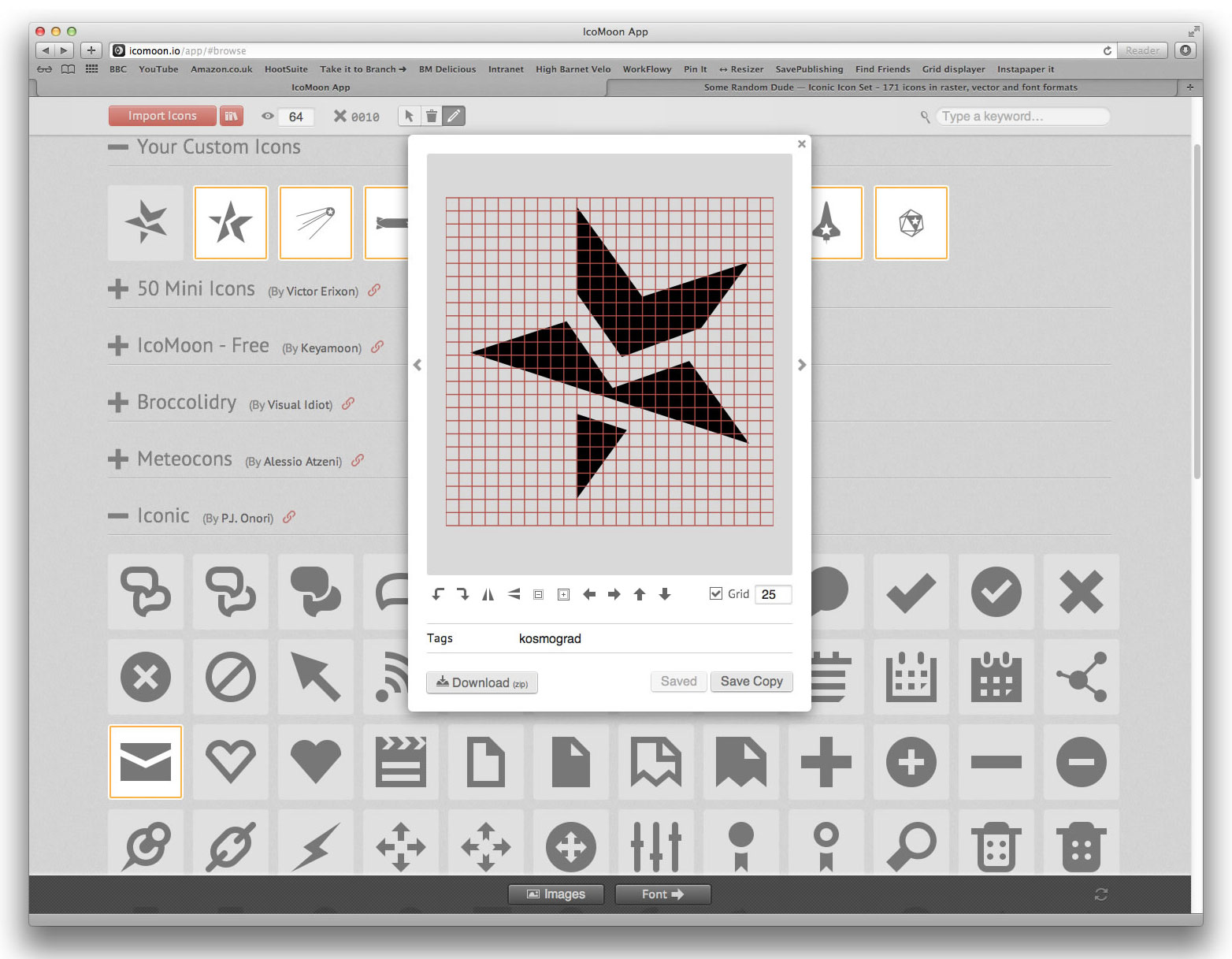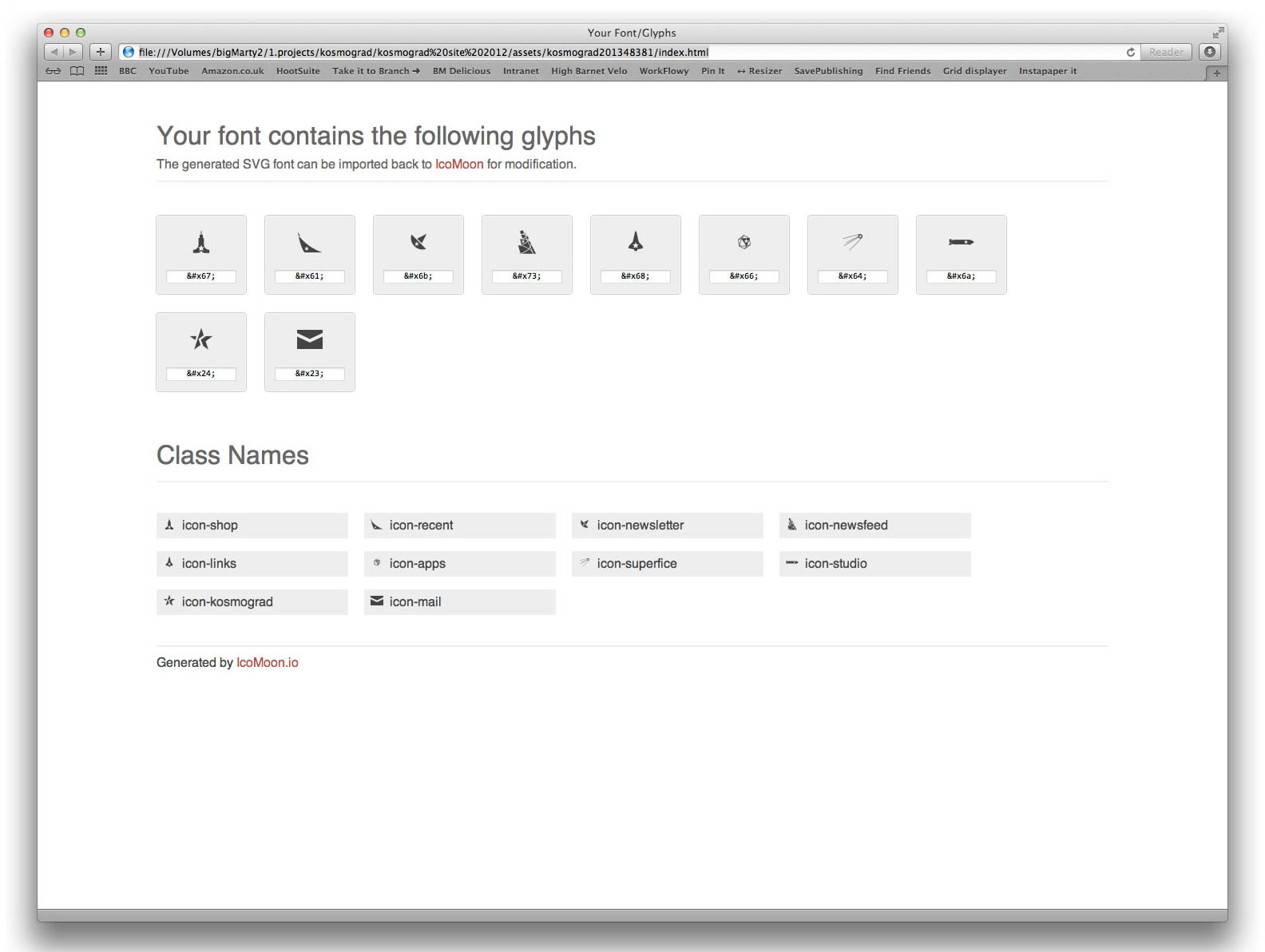
I had created some neat icons for a website redesign I was doing, and I previewed the new site on an old iPad. The layout looked OK at normal size, but zooming in to part of the page, I suddenly saw that my icon was a blurry mess, while the text-based header was still crisp and sharp. On a newer Retina-display iPad, the icons didn’t look quite sharp, even at normal size.
The first idea I had was to create double-sized sprite images, setting them to display at half their size using CSS. While this made them look better on a Retina display at normal size, as soon as you started to pinch and zoom, the blurriness returned. But the text was still as crisp and pin-sharp.
The answer was obvious. I needed to turn my icons into a font.
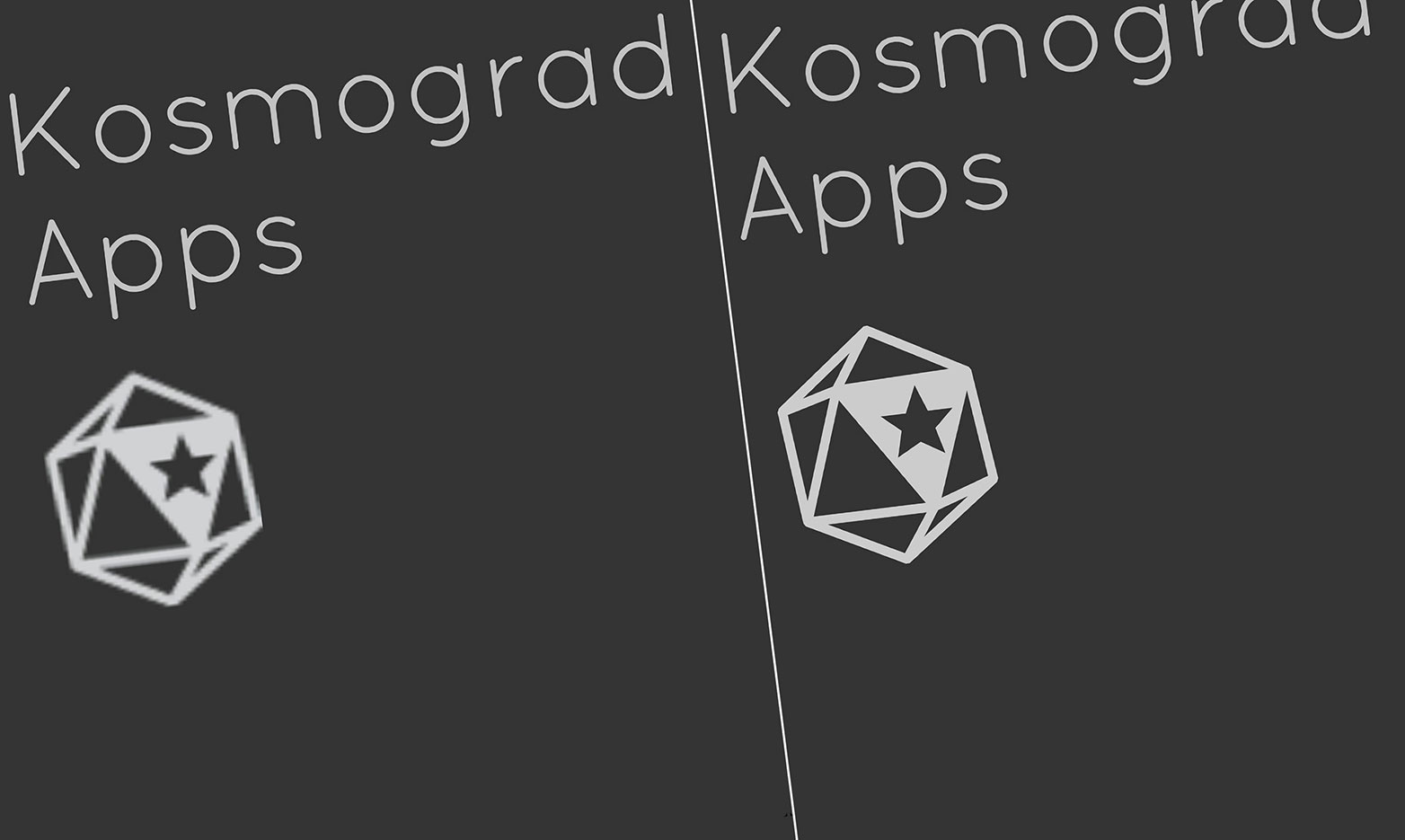
In this tutorial, we’ll look at how to turn vector icons into a web font using a great free web app called IcoMoon. Then, we’ll look at how to use the generated font files and CSS in a web page.
The advantages of using an icon font
An icon font has several advantages over bitmap images, in addition to image sharpness.
- Suitability: an icon font will be much smaller in file size than a series of images, especially if you have used double-sized images for Retina displays. And once the font has loaded, your icons will render instantly, with no need to download an image.
- Scalability: an icon font can be set to any size by setting the <code>font-size</code> property in the accompanying CSS. This enables you to experiment with different sizes; whereas, for bitmap images, you would have to output an image file at each size.
- Flexibility: text effects can easily be applied to your icon, including colors, drop shadows and rollover states. They will also display well against any color or image background.
- Compatibility: web fonts are supported by all modern browsers, and legacy browsers, too, even IE 6 and earlier.
Creating an icon font
Symbol fonts can be built using a dedicated font-creation app such as Glyphs, but a professional typography tool is way beyond the needs or requirements of building a simple icon font, in which the relationship between characters (i.e. kerning and ligatures) is not important.
By far the easiest way is to use a great free online app called IcoMoon, by Keyamoon, which takes away all of the hassle of converting symbols into a web font.
This HTML5 app takes away all of the pain of creating font files for simple uses such as building icon fonts. IcoMoon comes with a number of icon sets already loaded, and you can add more to your library, most of which can be used for free (check the licensing). If you are looking for fairly standard icons, such as “file download” and “shopping cart,” then you may find that using one of these is preferable to creating your own.
1. Prepare your illustrations
To begin with, you need to create the icons in a vector-drawing program that is capable of exporting to SVG format, such as Illustrator or Inkscape.
While you are designing, you can work with whatever colors you like, but the icons must be one solid color. Make sure each icon is approximately the same size. Having one icon much taller or longer than another will make it hard to build a consistent font. Here, I’ve had to reduce the width of my airship icon so that it matches the others.
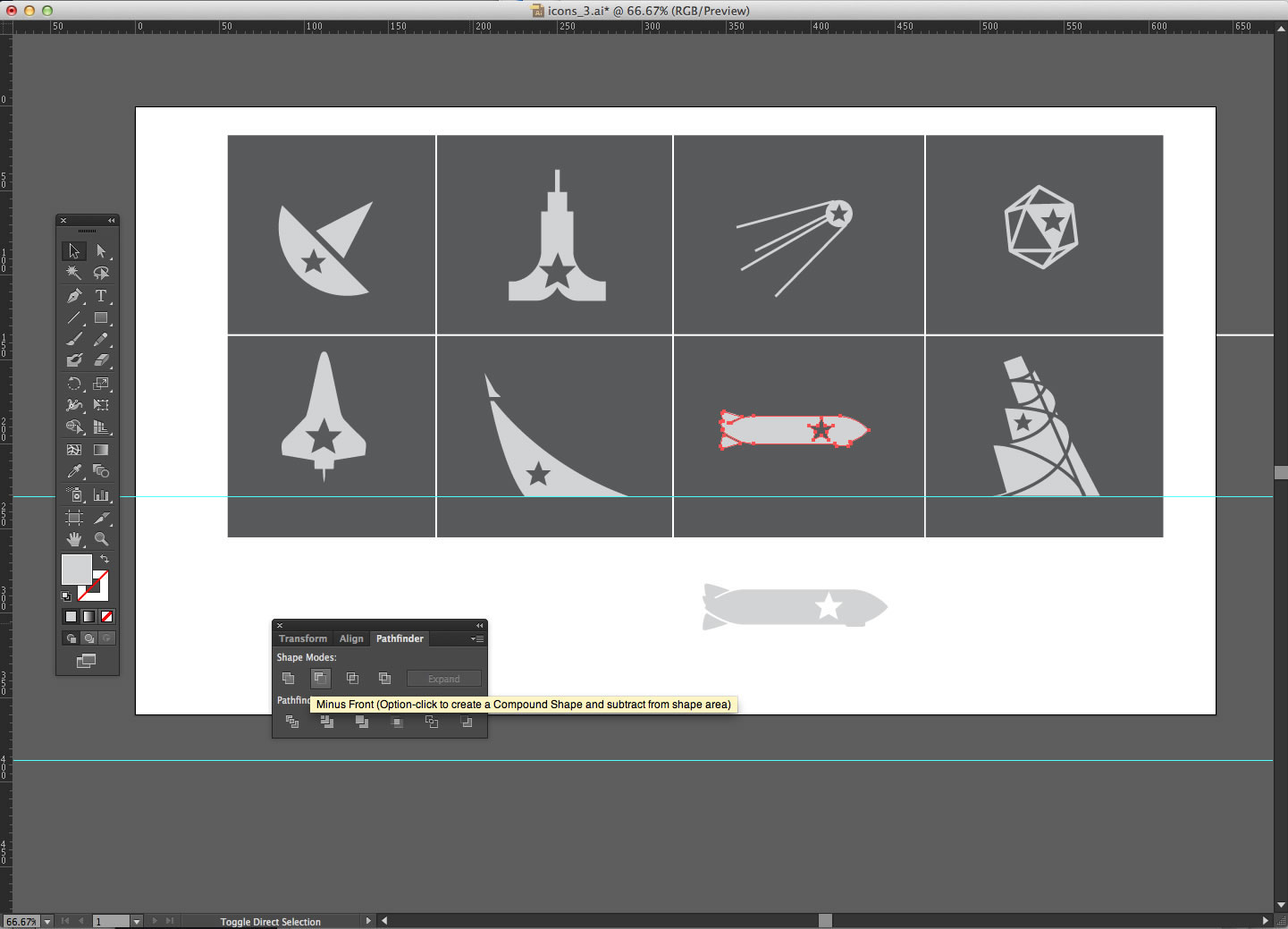
2. Clean up
Check each icon carefully to make sure it doesn’t have imperfections — details that look OK at smaller sizes may hide little defects when zoomed in. In the icon shown below, I need to remove the jagged steps that have crept in when layering elements.
In Illustrator, use the Pathfinder tool to unite overlapping elements, and the Minus Front element to remove cutout elements, such as the star in these icons.
The key principle is to ensure that your icon is readable at small scales. Simplify as much as possible.
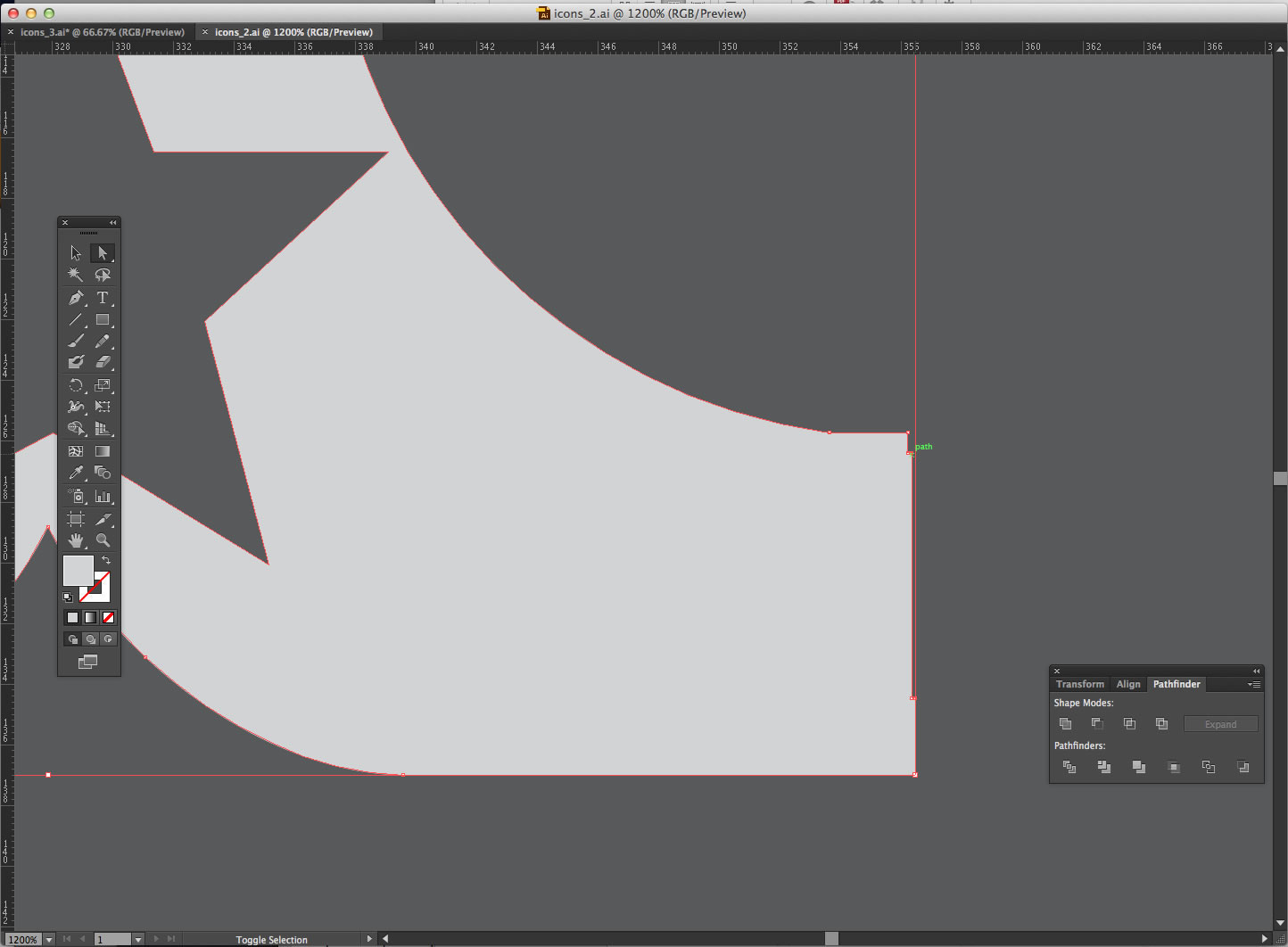
3. Export to SVG
Now, select an icon, and copy and paste it into a new square document (for example, 200 × 200 pixels). Scale the icon so that it fits. You may find it useful to set a baseline ruler. Color the icon so that it is solid black on a white background.
Now, choose <code>File… Save as</code> and save the file as an SVG file. Use the default SVG settings. Once you’ve done this for all of the icons, you’re ready to create a web font.
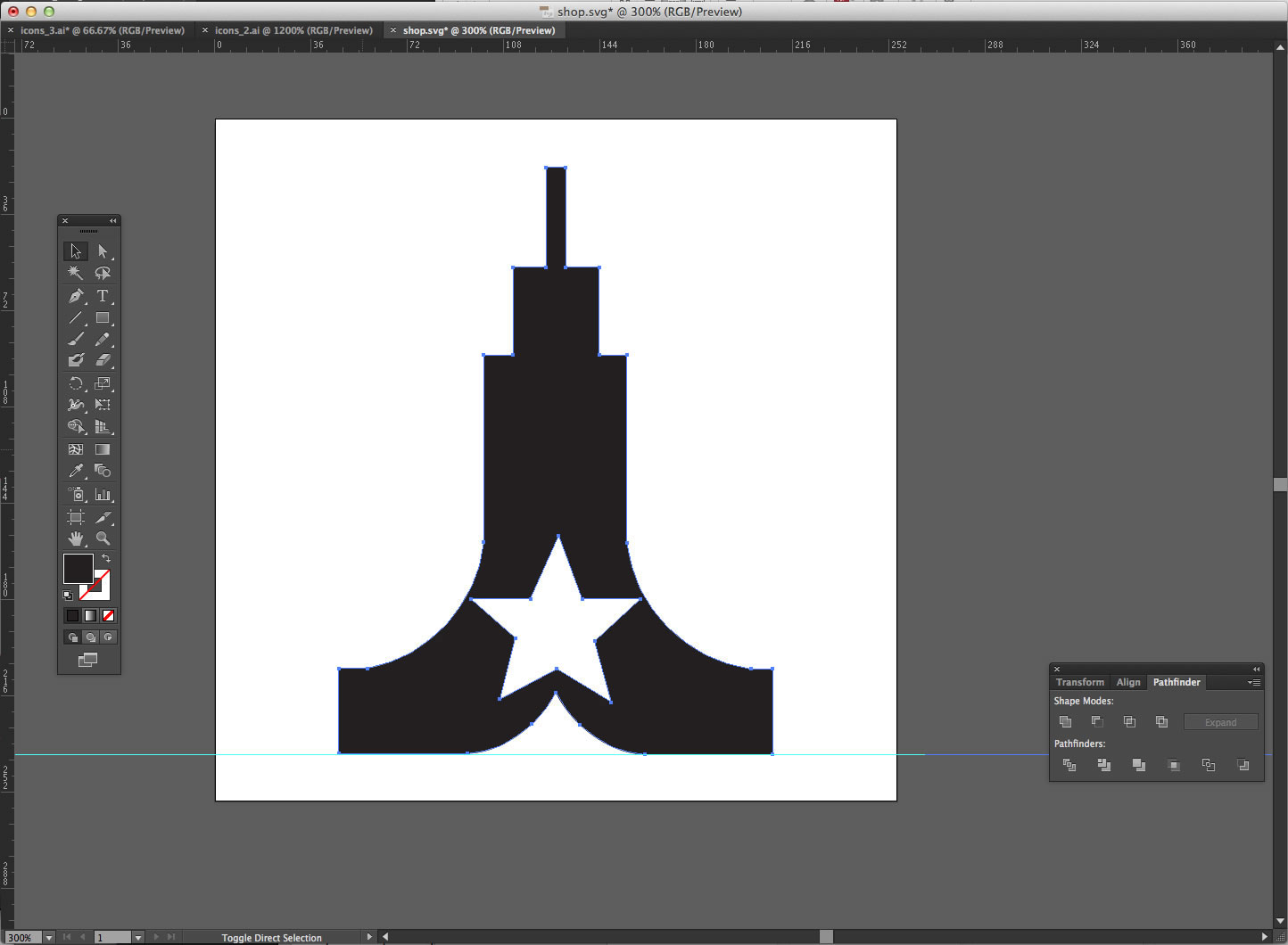
4. Import into IcoMoon
Open the IcoMoon web app. To import an icon, click the “Import icons” button, and then select the SVG files you want to add — you can add multiple files at once. These will then appear under “Your Custom Icons.” If they are highlighted in yellow, they will be part of the icon font you will create. In this example, you can see I have decided not to export one of my own icons, and I’ve added one of the icons from the “Mini-icons.”
5. Export font from IcoMoon
You can click the “Edit” button if you wish to adjust the icon’s position, sizing or rotation. Use the “Save Copy” button to create icon variations (for example, a mirror image of an icon). Add a meaningful tag to the icon, because this will be used to generate the class name for it.
8. Advanced ideas
As we’ve just discovered with the hover state, changing the color of the icon is as easy as setting the color property in our CSS, and changing the size is as easy as setting the font-size property. You can also set other properties, such as text shadow and transparency, all while retaining the resolution-independence of a font.
Try it, and I guarantee you’ll never use bitmap icons again.